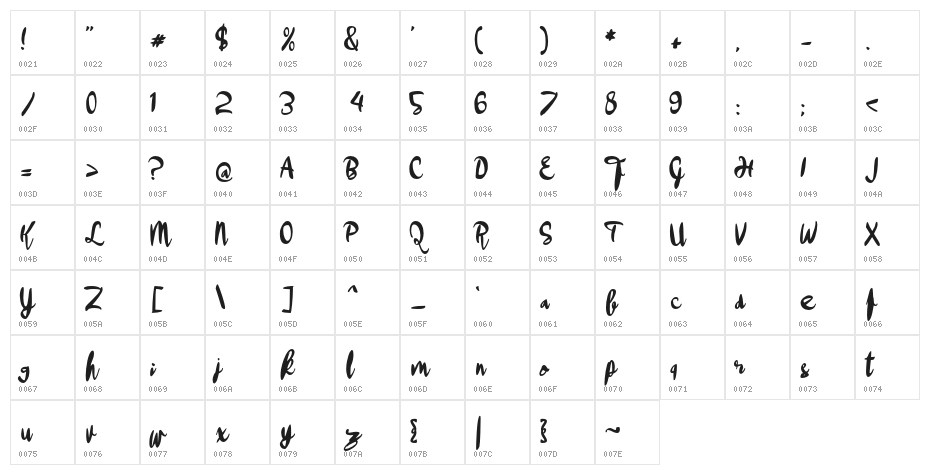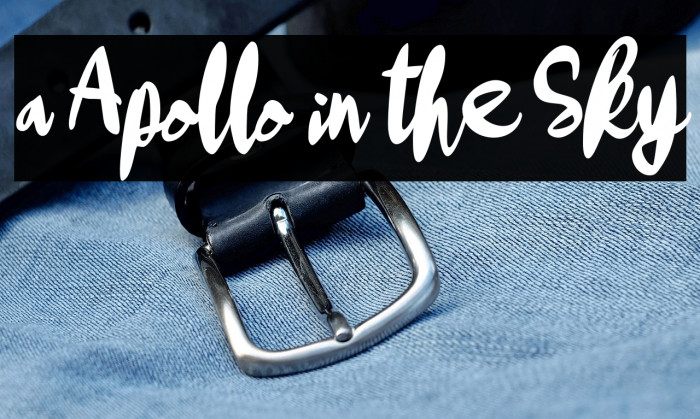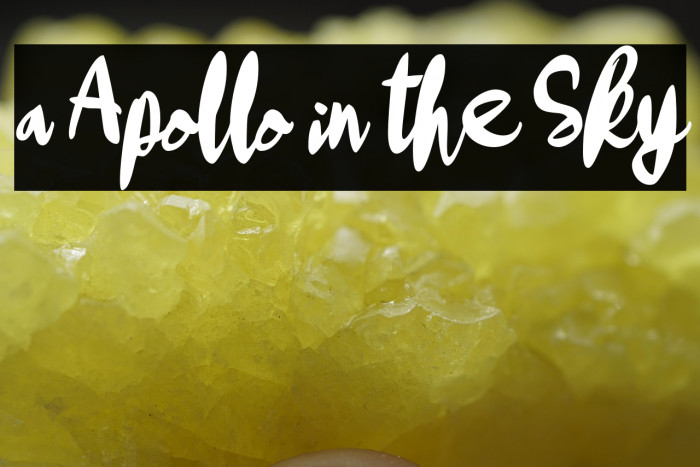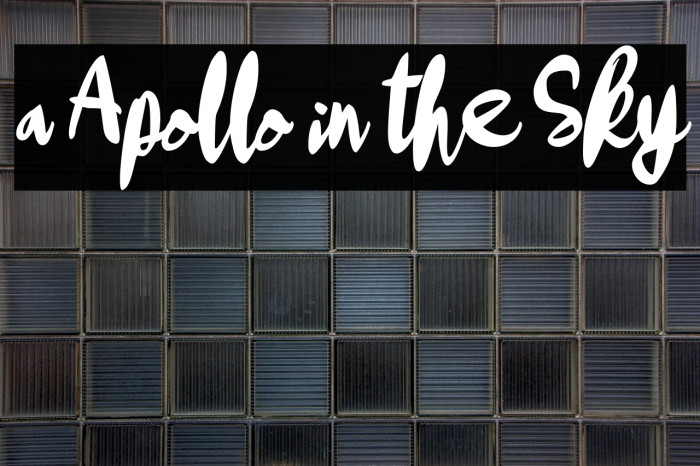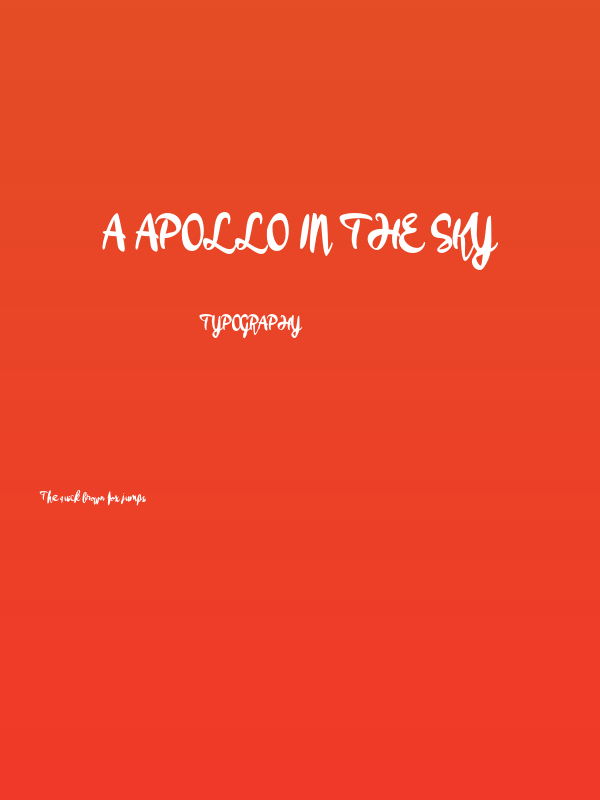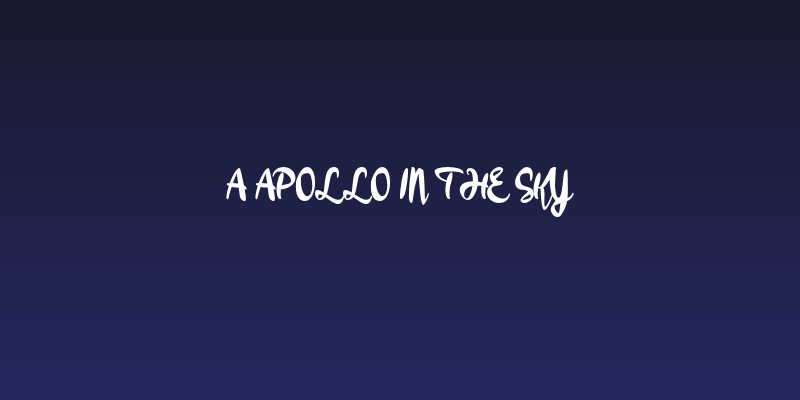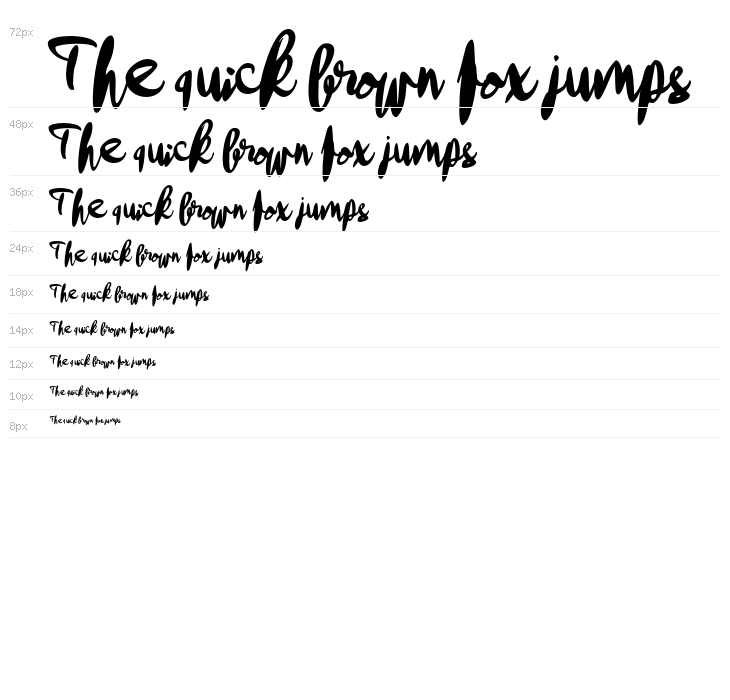
a Apollo in the Sky Font
a Apollo in the Sky Description
This font exudes a dynamic and energetic vibe with its bold, brush-like strokes that give it a handwritten appearance. The uppercase letters are tall and expressive, while the lowercase letters maintain a consistent flow, adding to the overall fluidity of the design. The numbers and special characters are crafted with the same attention to detail, ensuring a cohesive look across all elements. This font's style is both artistic and modern, making it suitable for creative projects that require a personal touch.
| Overall Style | Modern, Artistic |
| Proposed Projects | Ideal for branding, posters, invitations, and artistic projects that require a personal and expressive touch. |